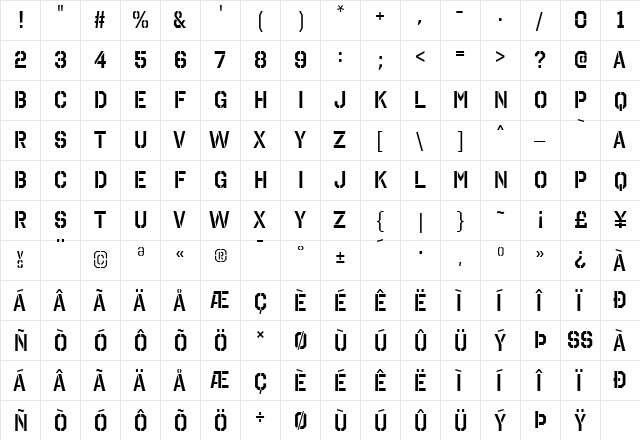
Octin Stencil SemiBold
Design Context for Octin Stencil Typeface
Octin Stencil borrows the utilitarian aesthetic of stencil lettering, with its characteristic cutaways and no-frills construction lending an industrial edge. The heavy weight commands attention and anchors typographic hierarchies.
Ideal for industrial branding, streetwear, military-adjacent aesthetics, and urban signage projects.
Pro Tip: Pair Octin Stencil with raw, utilitarian design elements — exposed concrete textures, flat colour, and minimal ornamentation suit it well.